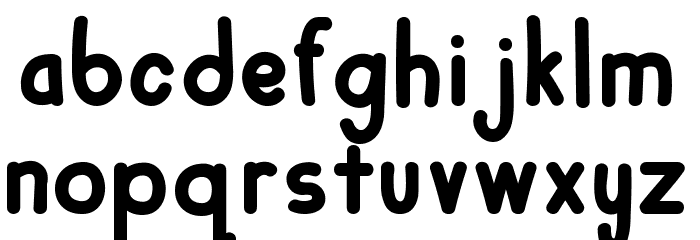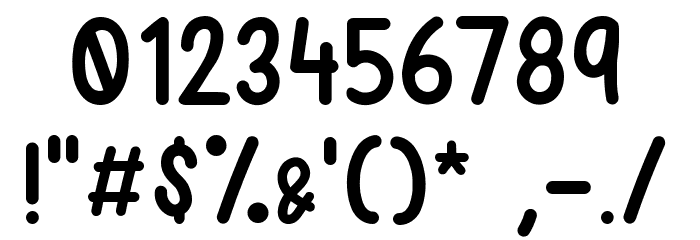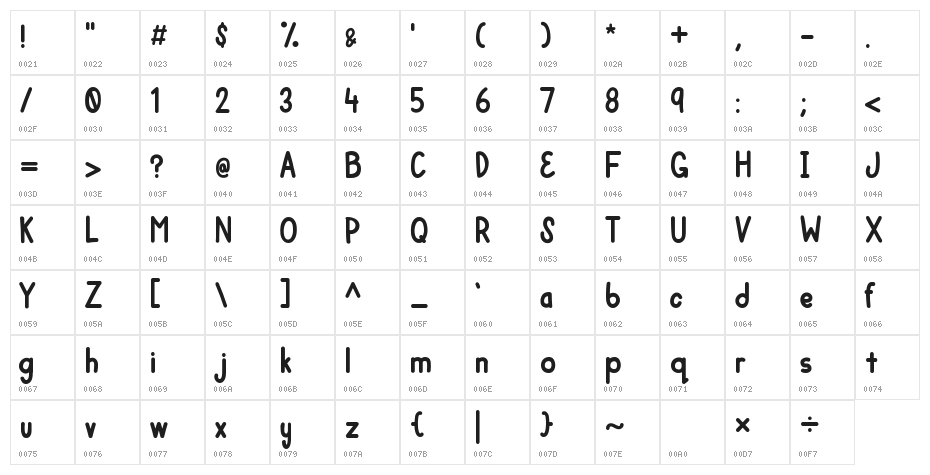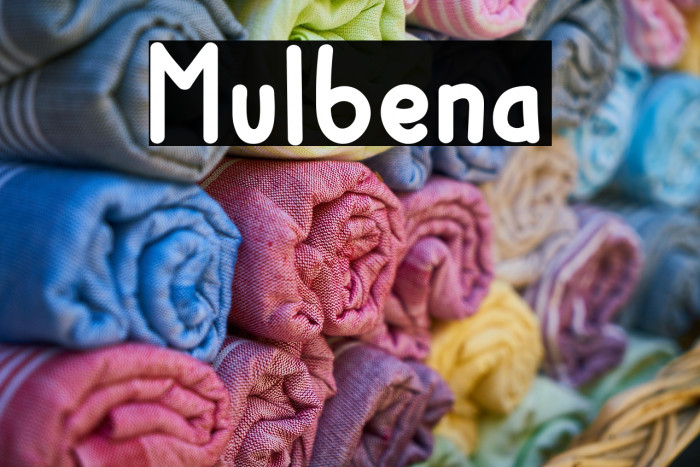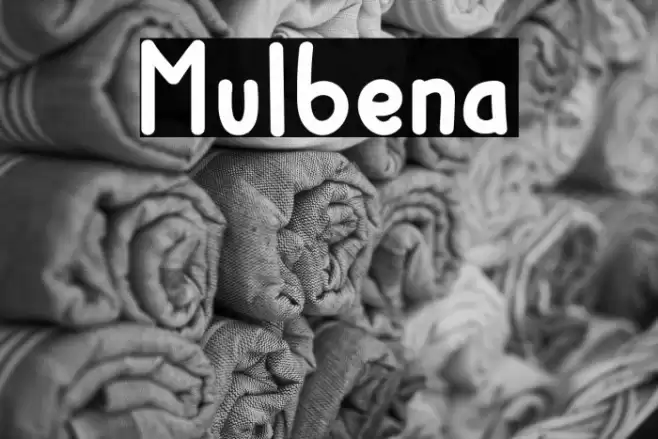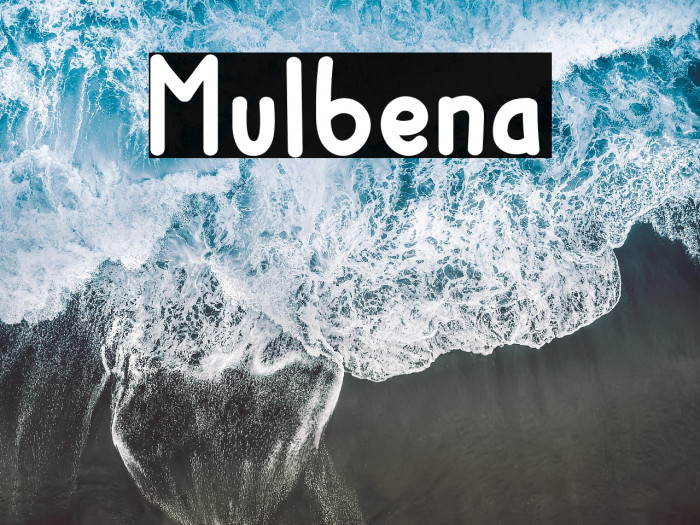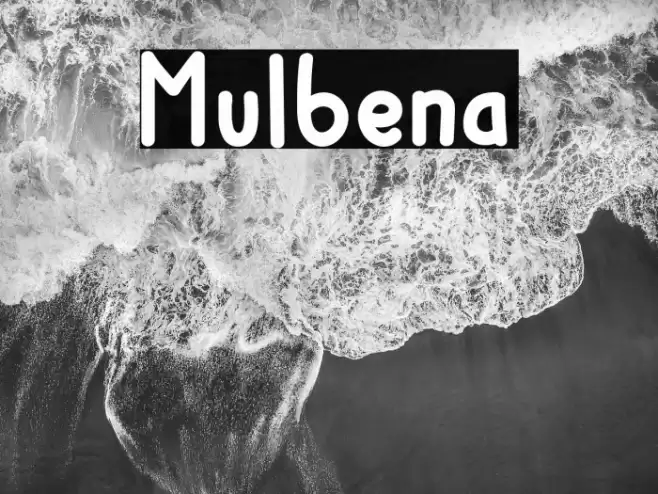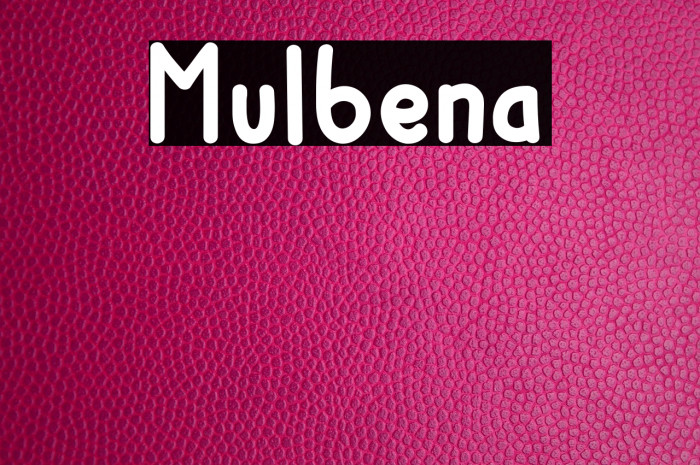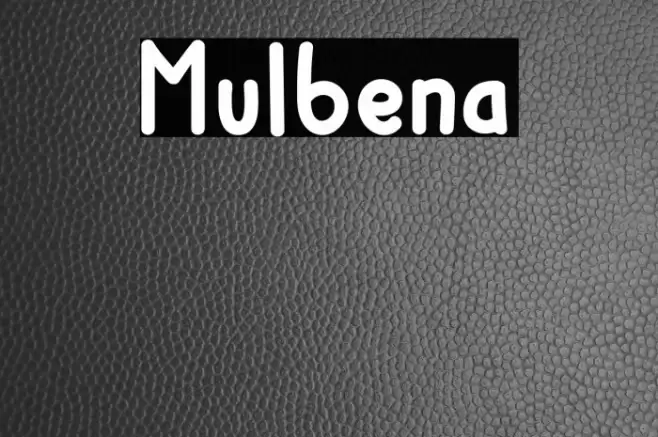
Mulbena Font
This playful and rounded font features a hand-drawn aesthetic, giving it a friendly and approachable feel. The characters are bold with a consistent stroke width, creating a uniform appearance. The uppercase and lowercase letters maintain a whimsical style, with slightly exaggerated curves and a casual flow. The numerals and special characters follow the same design principles, ensuring cohesion across all glyphs. This font's informal and lively nature makes it ideal for projects that require a touch of personality and creativity.
A playful, hand-drawn font with rounded, bold characters.
- Proposed Projects: Ideal for children's books, playful branding, casual invitations, and creative posters.